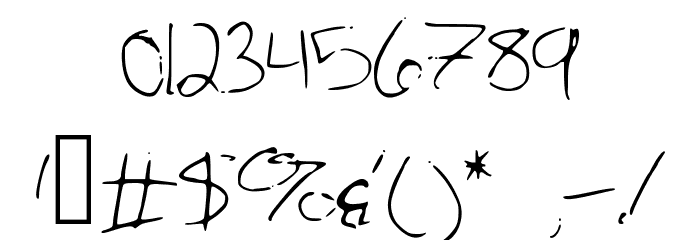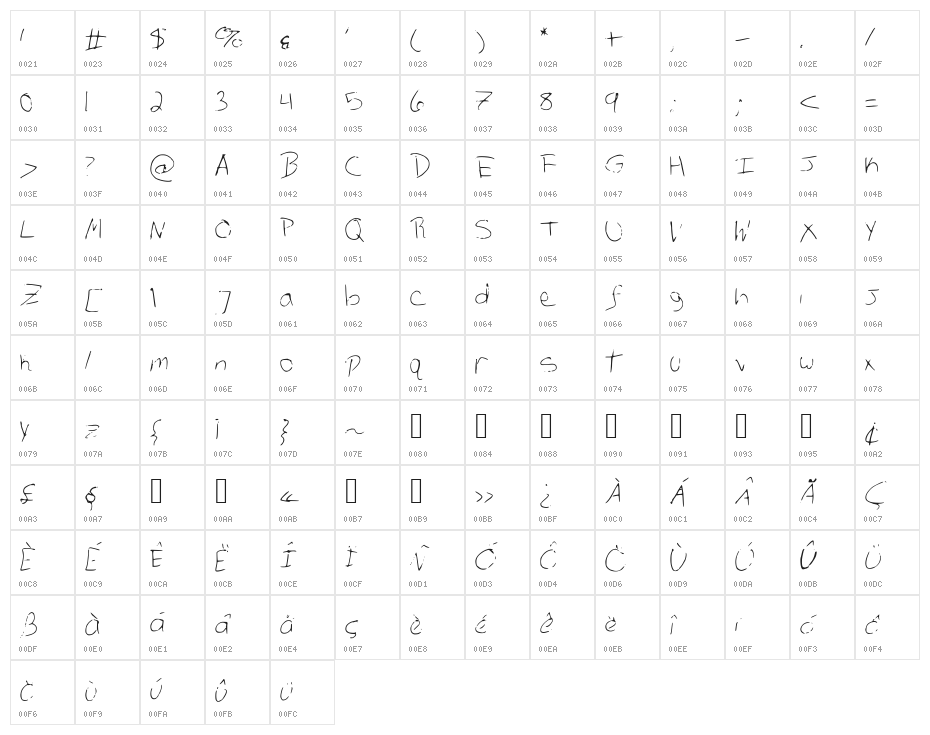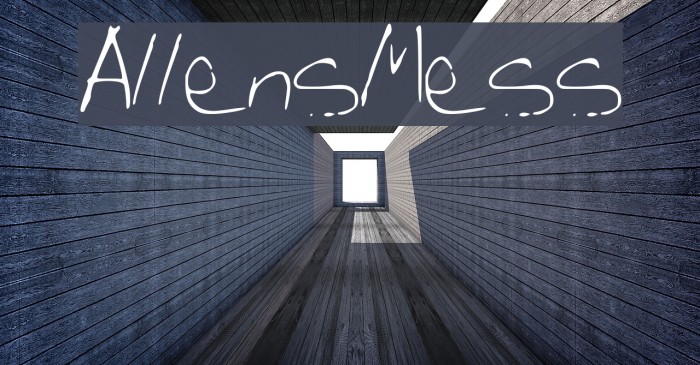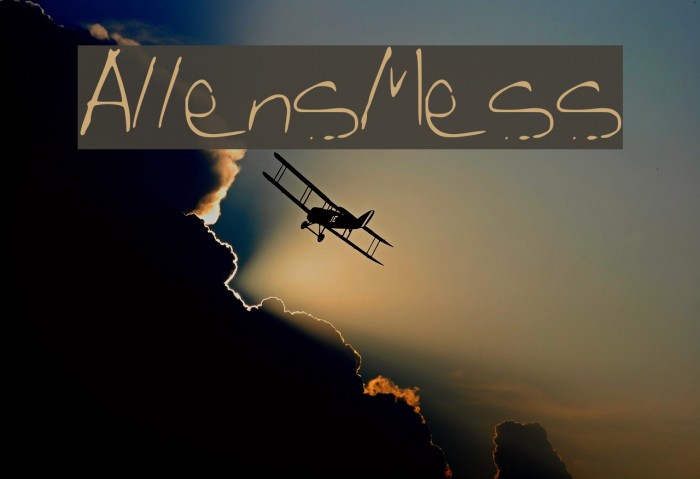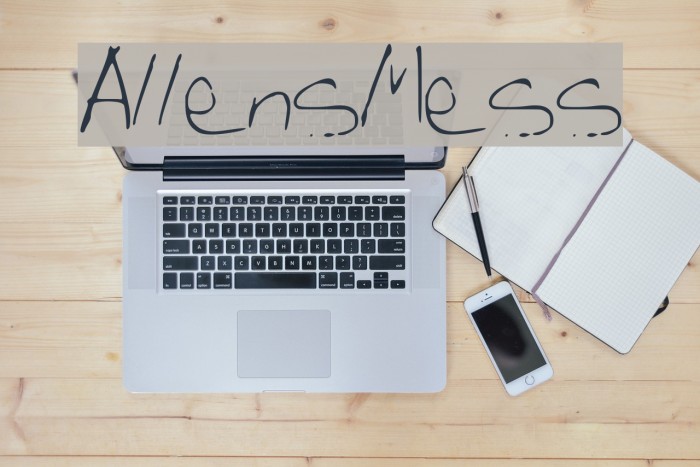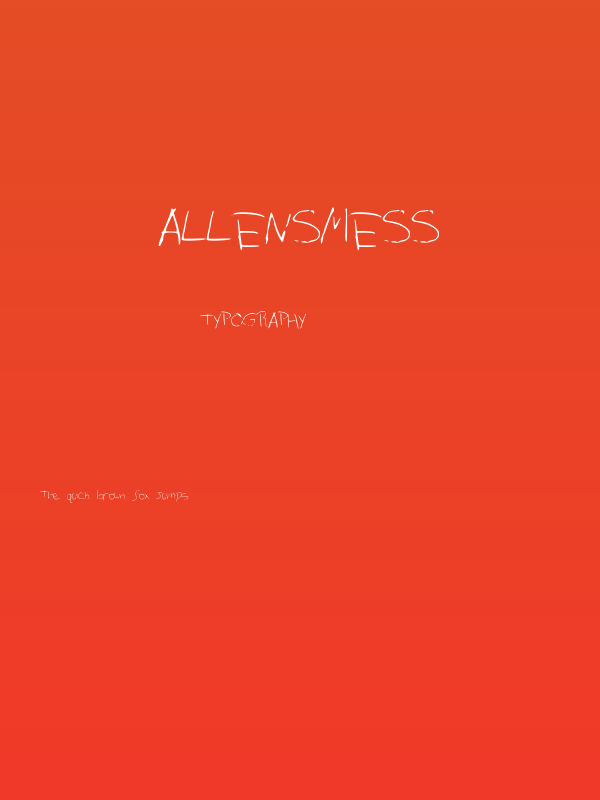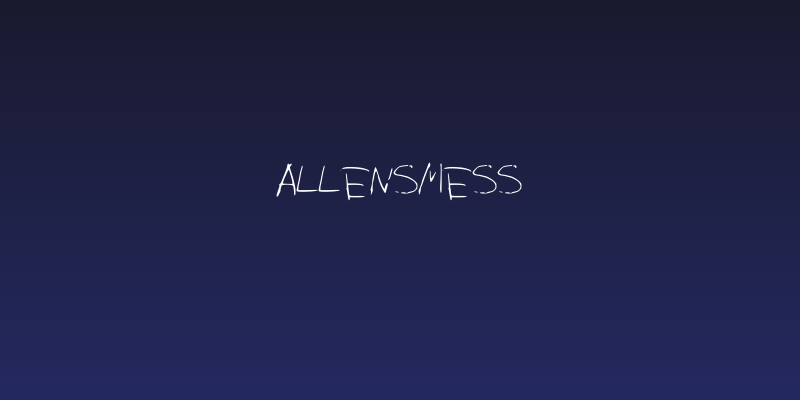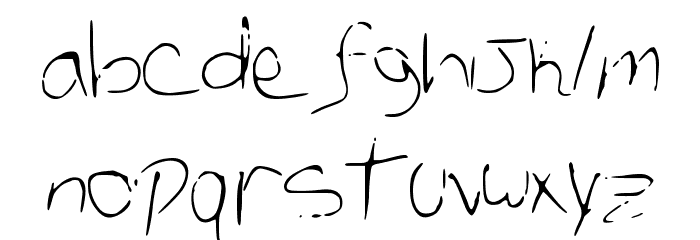
AllensMess Font
AllensMess Description
This font exhibits a unique, hand-drawn style that combines elements of both script and decorative fonts. The letters are characterized by their irregular, freeform strokes, giving them a casual and artistic appearance. The uppercase letters are bold and slightly angular, while the lowercase letters maintain a more fluid and rounded form. The numbers and special characters follow the same whimsical style, adding to the font's overall playful and creative aesthetic. The strokes vary in thickness, providing a medium contrast that enhances the font's dynamic look. This font is perfect for projects that require a personal, artistic touch.
| Use Case | Logos, Posters, Artistic Branding |
| Proposed Projects | Ideal for creative projects such as greeting cards, posters, and artistic branding. |